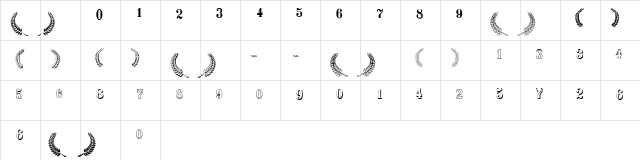
Youbilee Regular
| Foundry | Peter Wiegel |
| Designer | Peter Wiegel, original typeface by Carl Albert Fahrenwaldt 1901 |
Design Context for Youbilee Typeface
Youbilee is a composed and adaptable typeface that performs quietly and consistently across a wide range of design contexts.